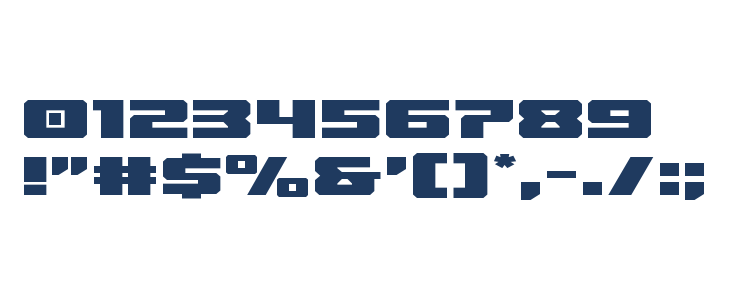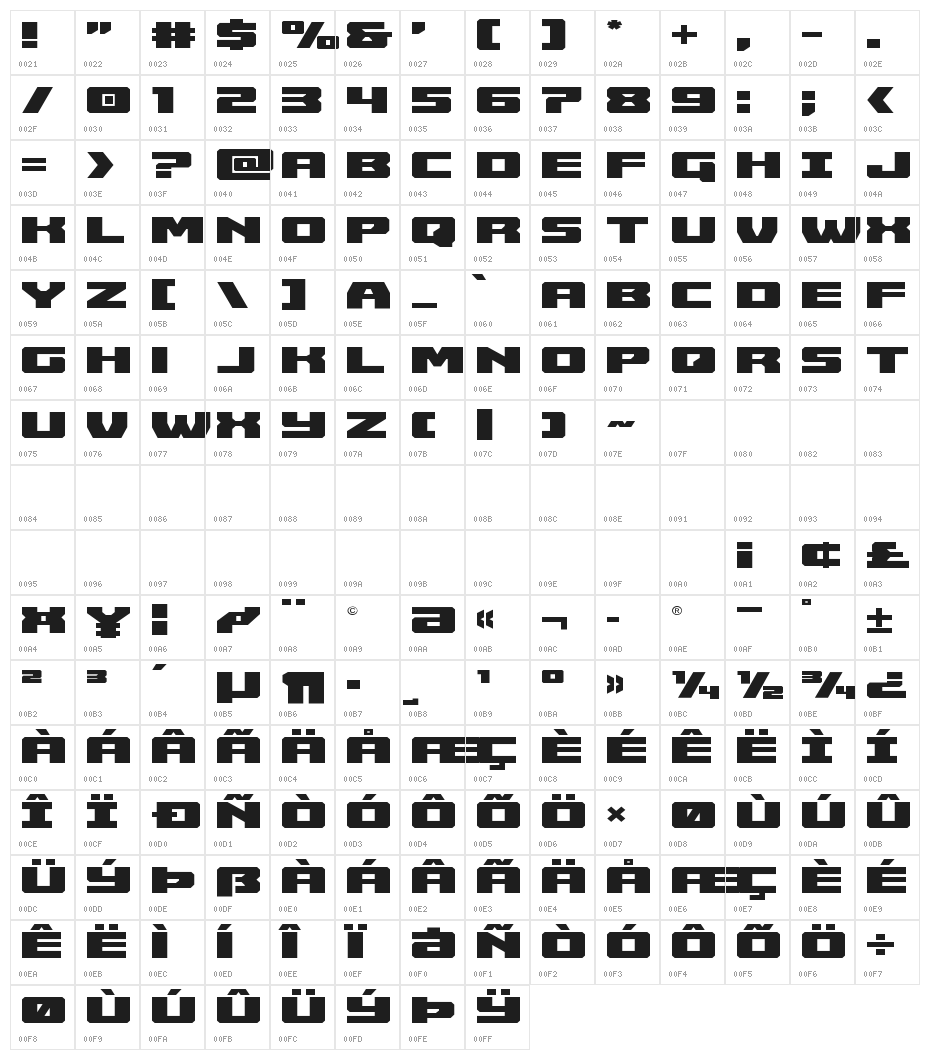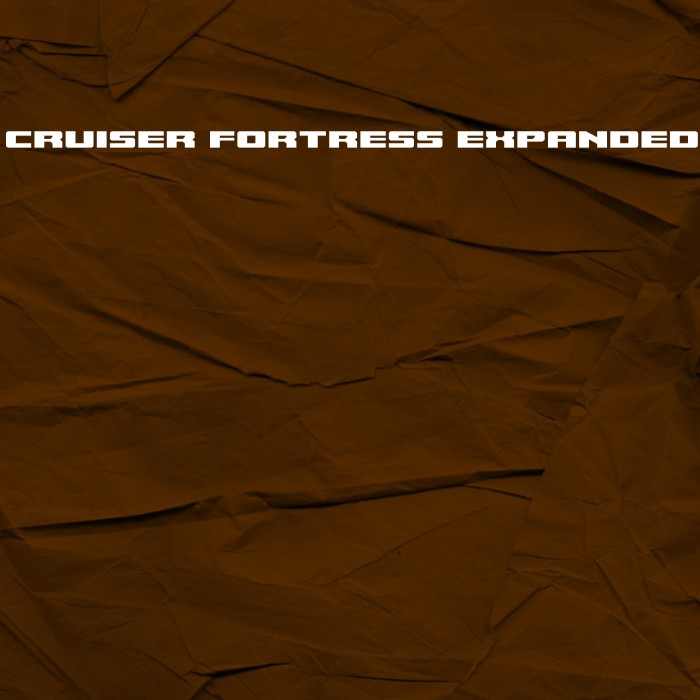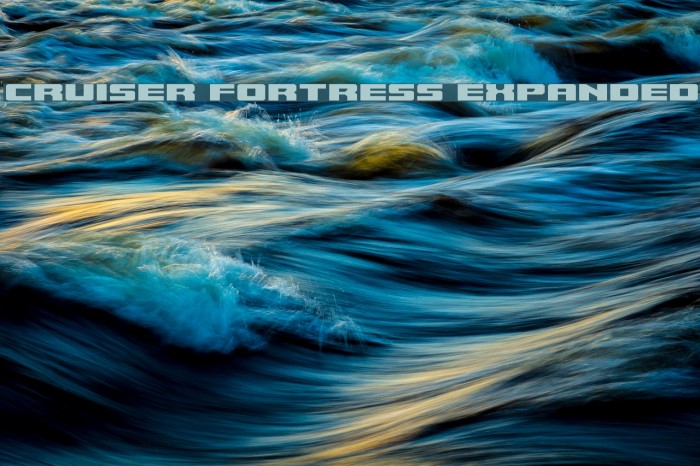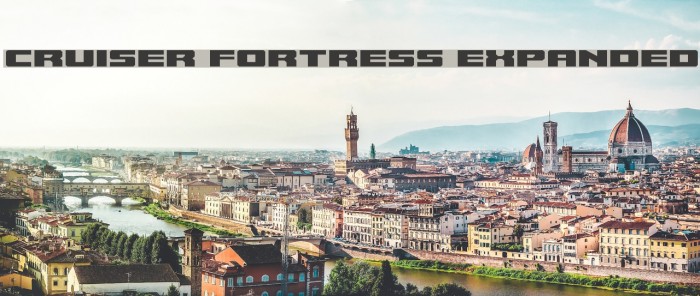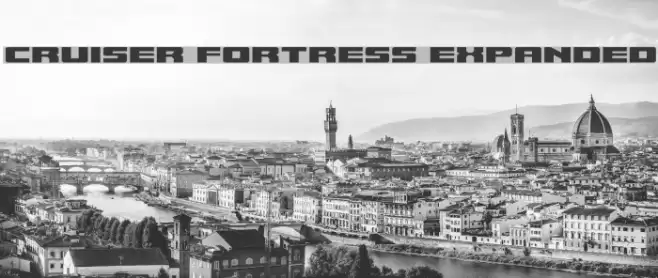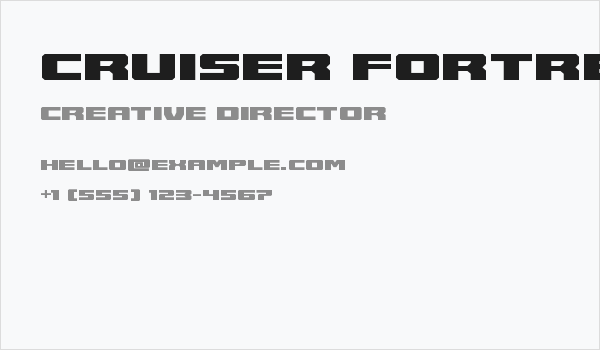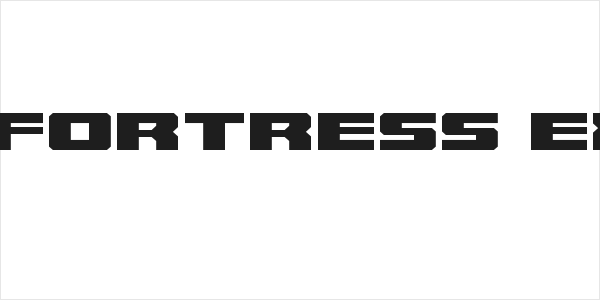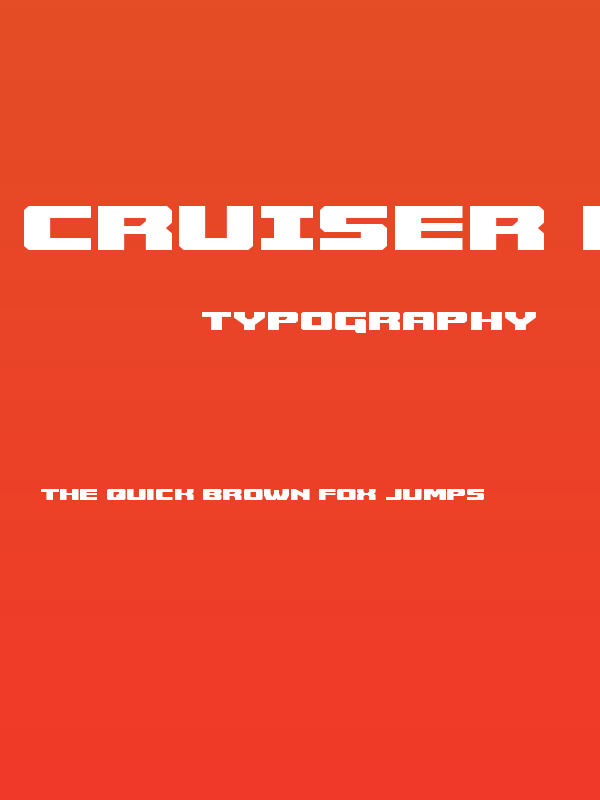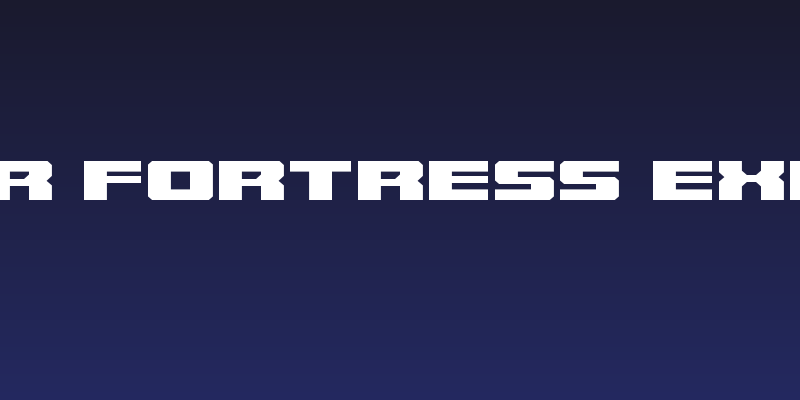
Cruiser Fortress Expanded Font
Cruiser Fortress Expanded Description
This font features a bold and robust design with a distinctly geometric and angular style. The characters are wide and blocky, exuding a sense of strength and stability. The uppercase and lowercase letters maintain a consistent width, creating a uniform appearance. The numbers and special characters follow the same design principles, ensuring cohesion across all elements. The font's expanded width and heavy weight make it particularly eye-catching, ideal for making a strong visual impact. Its modern and industrial aesthetic is suitable for projects that require a bold statement.